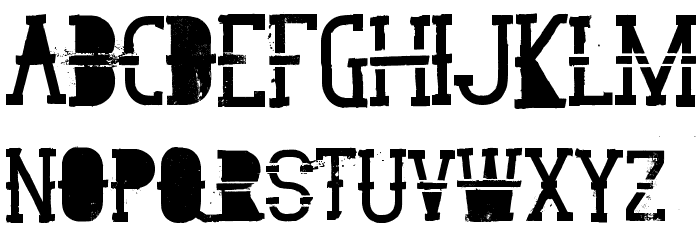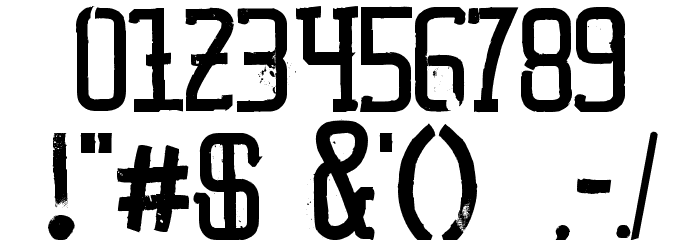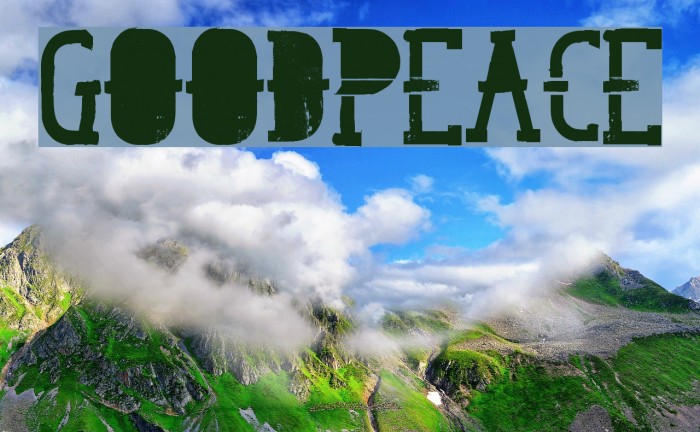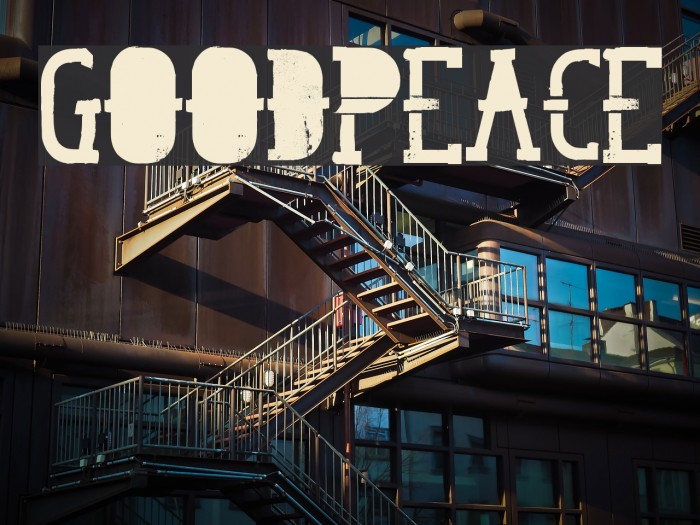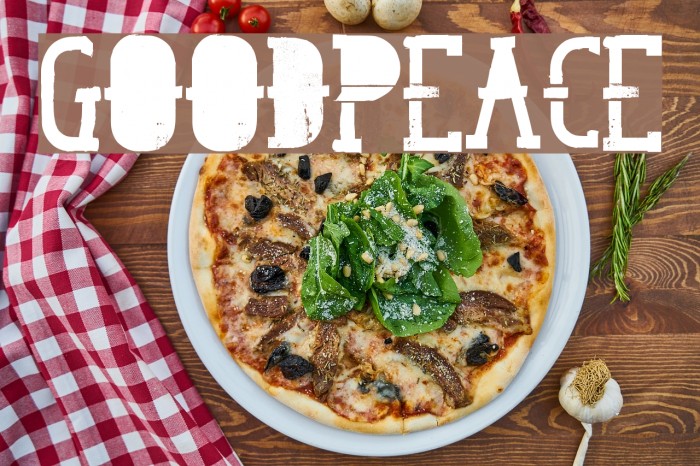
GoodPeace Font
This font features a distressed, grunge style with a bold and impactful appearance. The characters are designed with a rough, textured look, giving them a vintage and worn-out feel. The uppercase letters are prominent, with a stencil-like quality that adds to the rugged aesthetic. The numbers and special characters maintain this distressed theme, ensuring consistency across all glyphs. The font's unique style makes it stand out, perfect for projects that require a bold statement or an edgy, urban vibe.
A bold, distressed font with a vintage, grunge aesthetic.
- Proposed Projects: Ideal for posters, album covers, branding for edgy or alternative products, and any design needing a bold, vintage look.
- Overall Style: Vintage